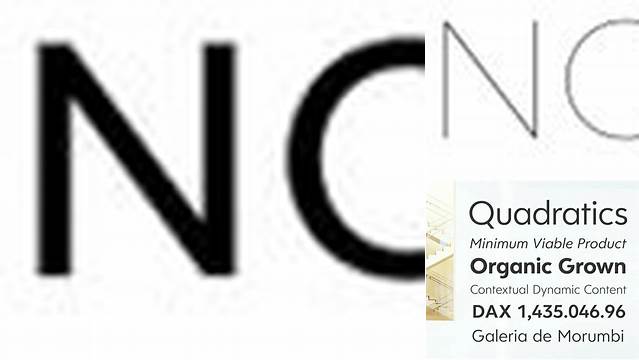
What Makes Clarika Pro Geometric Medium Font Special?
Alright, so what's the big deal about Clarika Pro Geometric Medium? Well, it's all about that perfect blend of modern design and user-friendliness. This font is part of the Clarika Pro family, known for its clean lines, geometric shapes, and overall versatility. The "Medium" weight strikes a fantastic balance – it's bold enough to grab attention but not so heavy that it overwhelms your design. This makes it super adaptable for a wide range of uses, from website headings and body text to eye-catching logos and print materials. The geometric aspect of the font gives it a contemporary edge, making your designs look fresh and up-to-date. What's really cool is how easy it is on the eyes. The clarity of each character ensures excellent readability, even at smaller sizes, which is a huge plus for any project where clarity matters. Also, because it is free, it gives you a lot of creative flexibility without any cost-related restrictions. The geometric style brings a unique touch to any design, creating a modern and impactful look. Choosing this font can significantly improve the visual appeal and professionalism of your projects, ensuring that your message is not only conveyed but also leaves a lasting impression on your audience. It is a great choice for anyone looking to improve the visual appearance of their work. Choosing this font family helps bring out the visual appearance and professionalism of the projects, making sure the message is conveyed and leaves a lasting impression on your audience. Using this font can bring a unique look and style to your designs.
Using Clarika Pro Geometric Medium Font in Your Designs
Alright, the font is installed – now it's time to get creative! Clarika Pro Geometric Medium is incredibly versatile, making it perfect for a ton of different design projects. Here are some ideas to get you started:
- Website Headings and Body Text: The clean lines and excellent readability of this font make it an ideal choice for website headers and body text. It ensures a modern and professional look while keeping your content easy to read. Use it for your main headlines or subheadings to create visual interest. You might want to choose a slightly lighter weight for body text to optimize readability, while using the medium weight for headings to make them pop. Try experimenting with different sizes and letter-spacing to find what works best for your website's overall design. Consistency is key, so stick to a consistent style throughout your website for a polished look.
- Logo Design: Clarika Pro Geometric Medium can be used to create eye-catching logos. Its geometric style gives logos a contemporary feel, making them memorable and visually appealing. Play with different variations, such as pairing it with a unique icon or symbol, to create a distinctive logo. The font's clean style ensures that it will look great whether it's used on a business card or a billboard.
- Print Materials (Posters, Flyers, Brochures): Perfect for grabbing attention in posters, flyers, and brochures, the font can be used for headlines, taglines, and even for body text. Its modern design makes sure your print materials stand out from the crowd. Use it in large sizes for impact or in smaller sizes for a professional, clean look. Remember that the choice of paper and colors can greatly impact the font's visibility and the overall design. Pair the font with a visually appealing design and a clear layout for maximum impact.